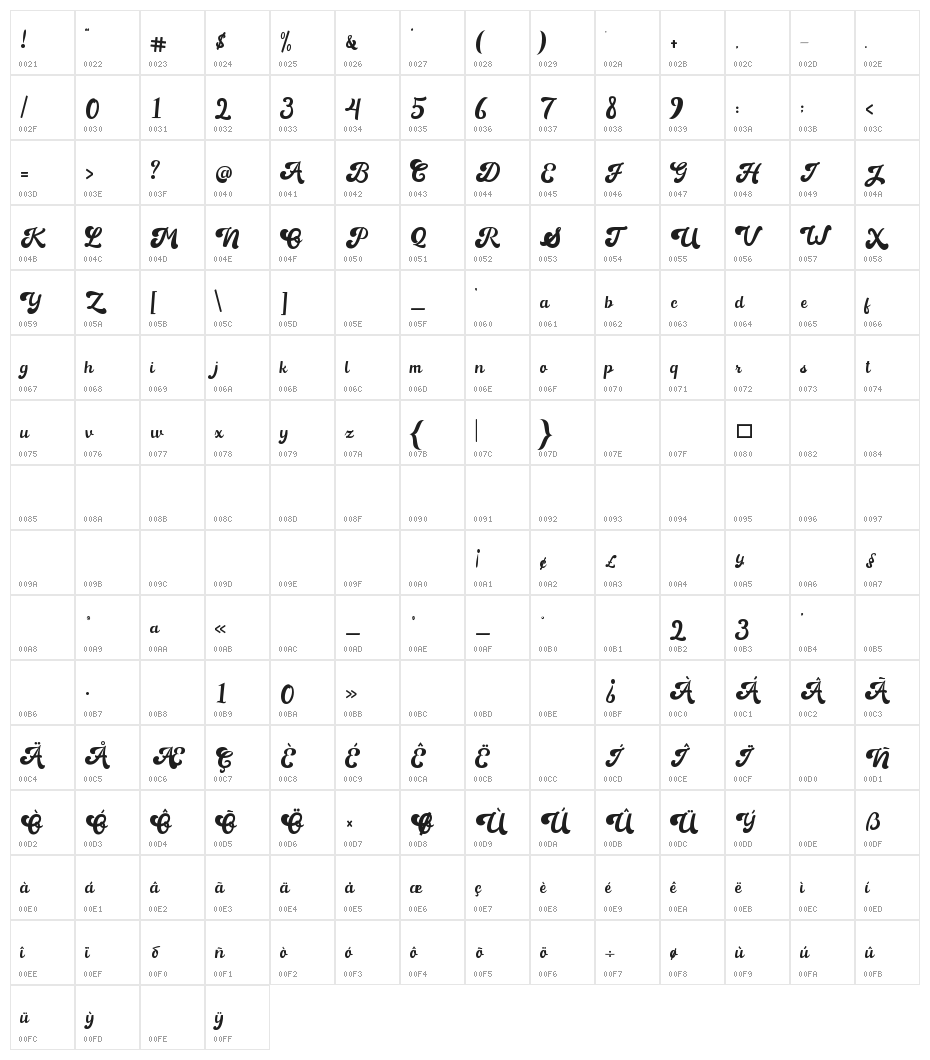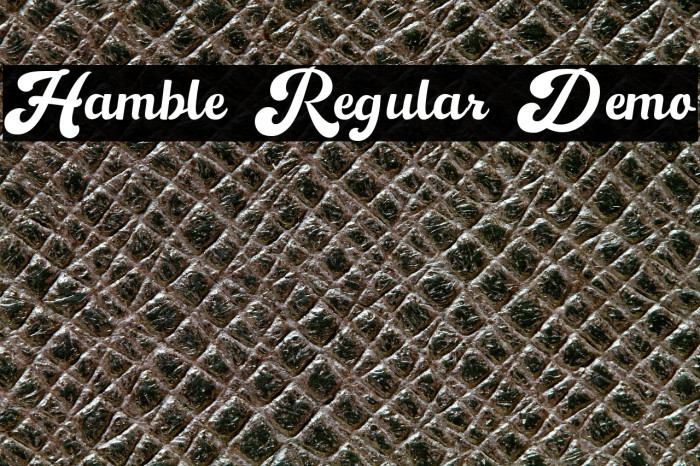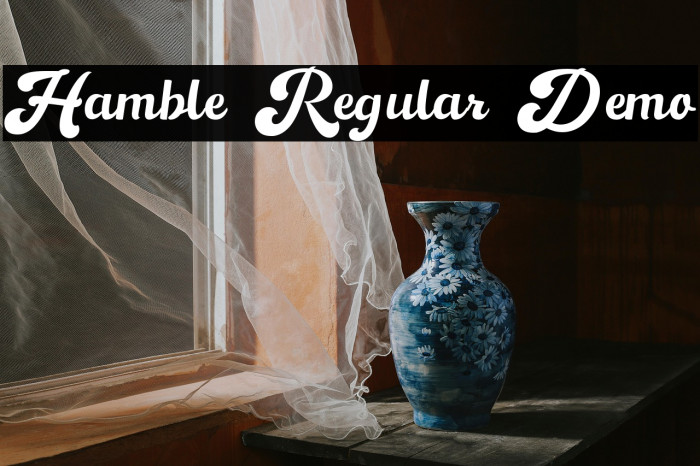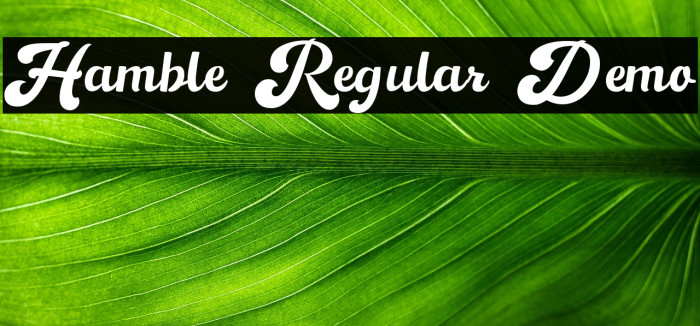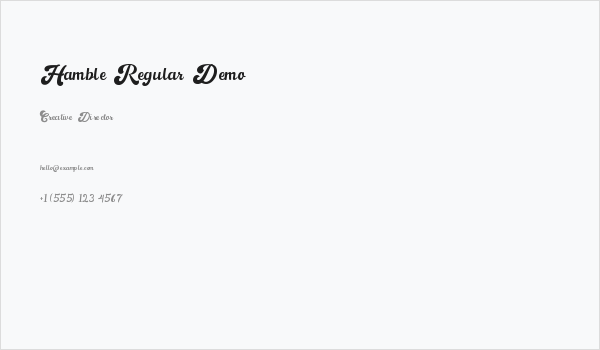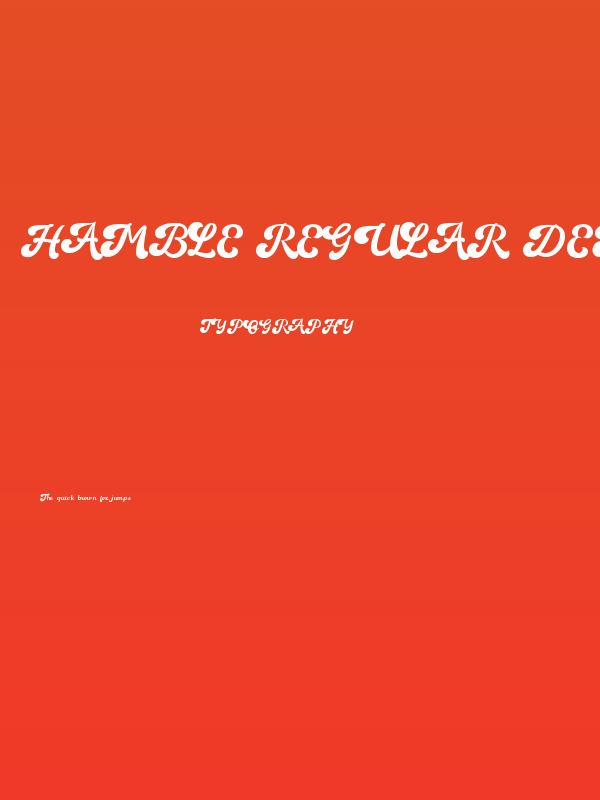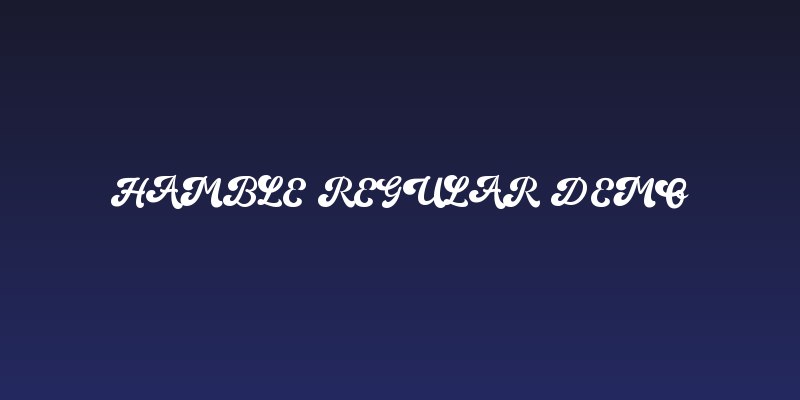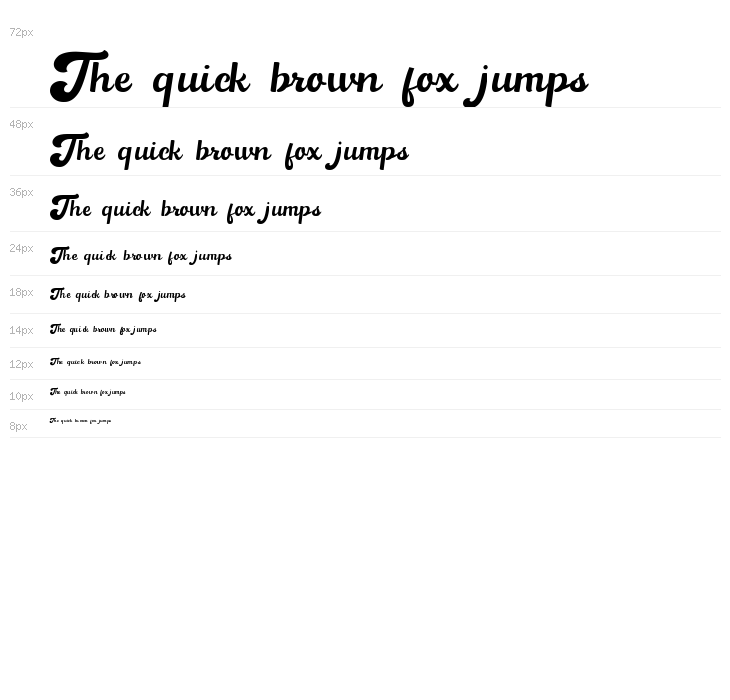
Hamble Regular Demo Font
Hamble Regular Demo Description
This font features a bold and flowing script style, characterized by its elegant curves and smooth connections between letters. The uppercase letters are ornate, with flourishes that add a touch of sophistication, while the lowercase letters maintain a consistent flow, enhancing readability. The numerals are distinct and maintain the same decorative style, ensuring they stand out while remaining cohesive with the overall design. Special characters are crafted with the same attention to detail, making them suitable for a variety of uses. The font's overall appearance is both classic and decorative, making it versatile for creative projects.
| Overall Style | Classic, Decorative |
| Proposed Projects | Ideal for wedding invitations, branding, logos, and elegant packaging designs. |